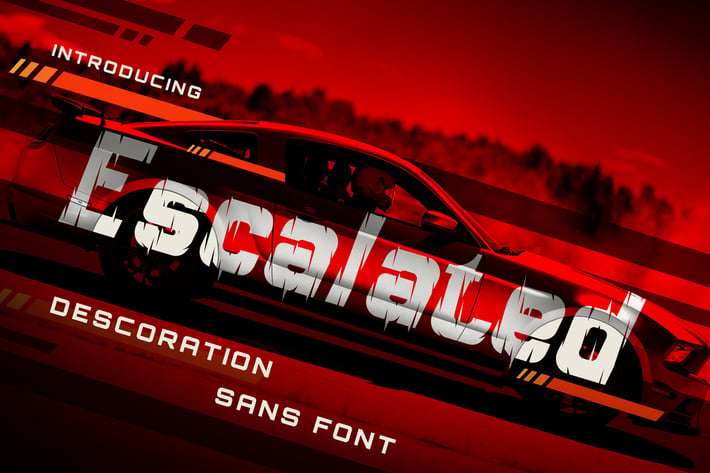
Escalated - Fast Motorsport Racing Font
Introducing escalated font. Are you looking for a bold and solid display font that has unique racing and sport feeling? We can help! Try to download our Escalated font. The font is suitable to use for many occasion such as sport, racing, game, music, movie title, brand, technology, space and many more :)